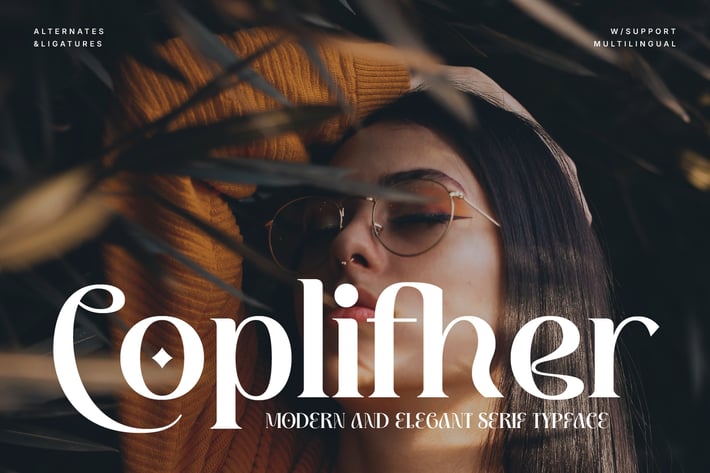
Coplifher - Modern Serif Font
Introducing Coplifher - Modern Serif Font
Coplifher - A Stylish Retro Font. This font can look more retro (conservative) serif, which is perfect for texts. So same he can be more expressive, playing and more modern with alternative substitutes and ligatures. Try to play with them and you will get the uniqueness in your project
This Font Template contains Classy, Elegant, Creative, Cool and has a Unique Concept.
- Stylistic Character
Coplifher - A Stylish Retro Font. This font can look more retro (conservative) serif, which is perfect for texts. So same he can be more expressive, playing and more modern with alternative substitutes and ligatures. Try to play with them and you will get the uniqueness in your project
This Font Template contains Classy, Elegant, Creative, Cool and has a Unique Concept.
- Stylistic Character